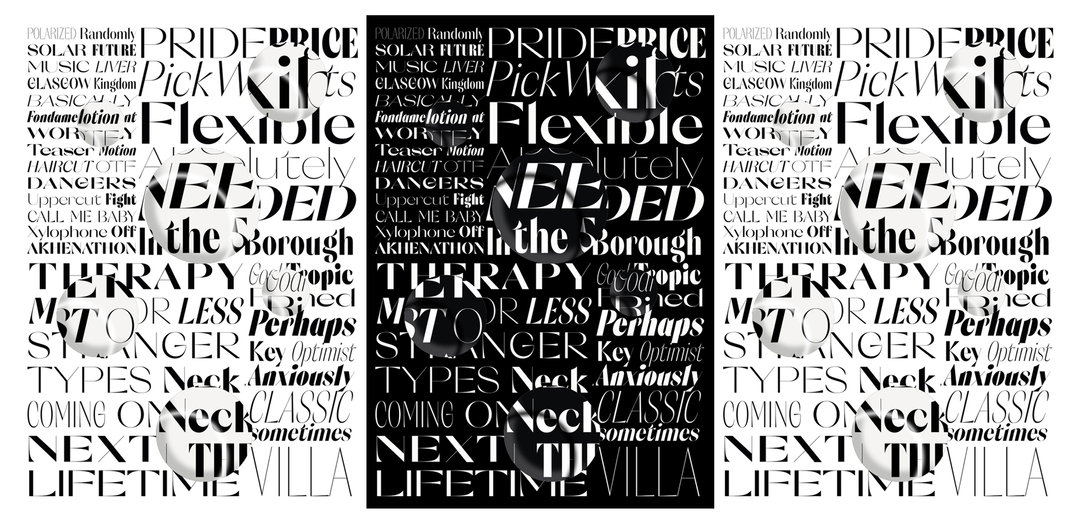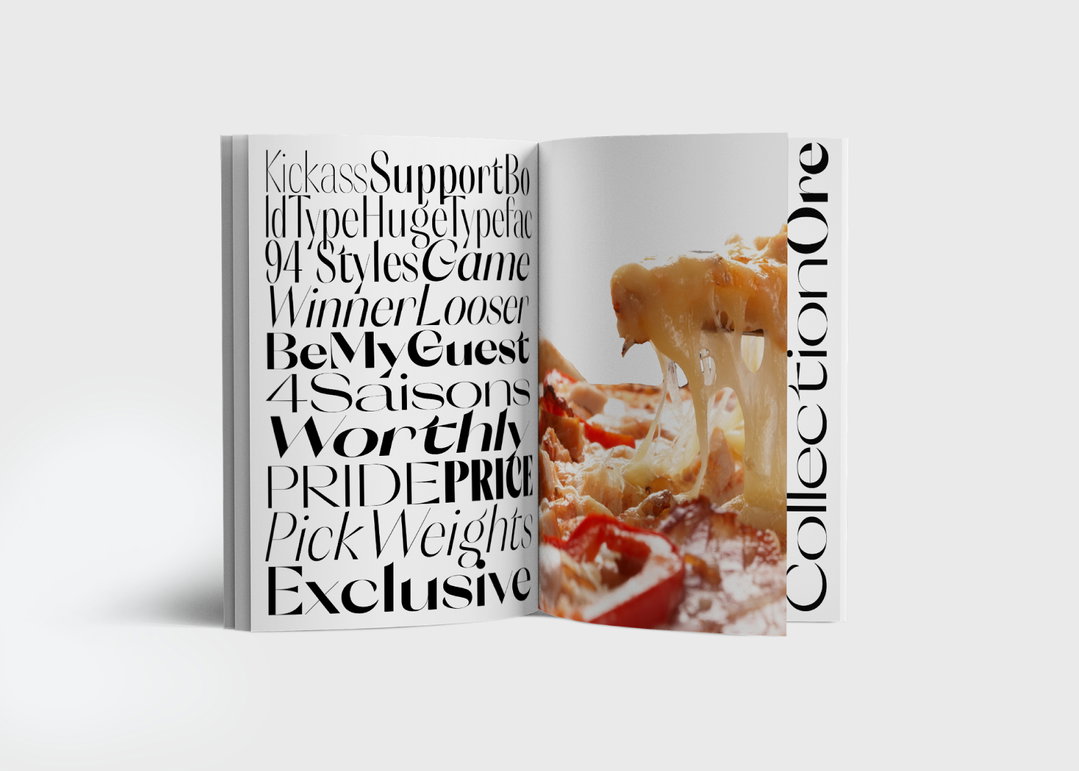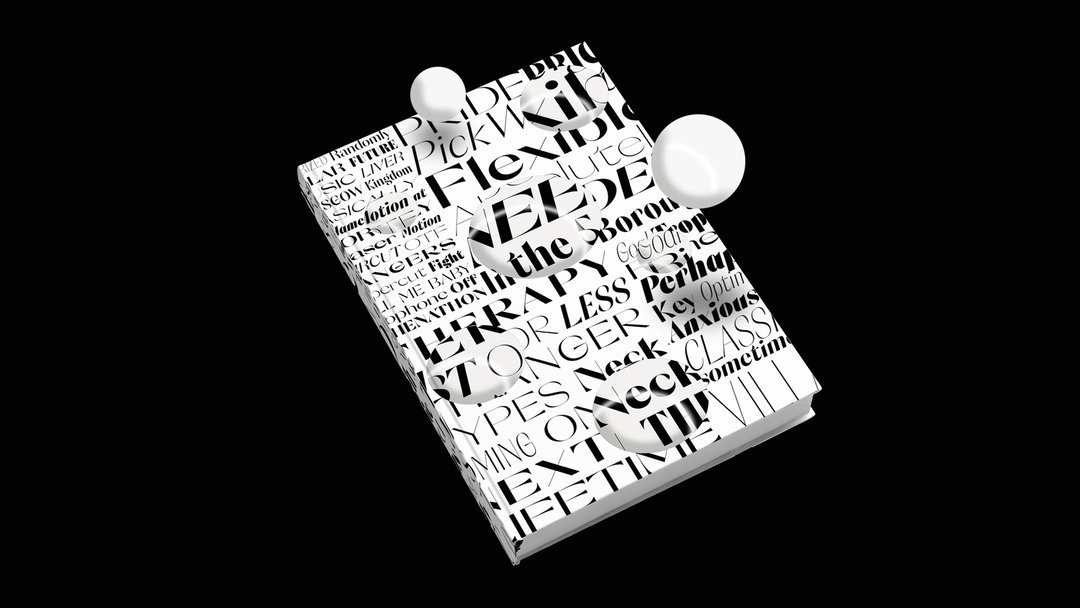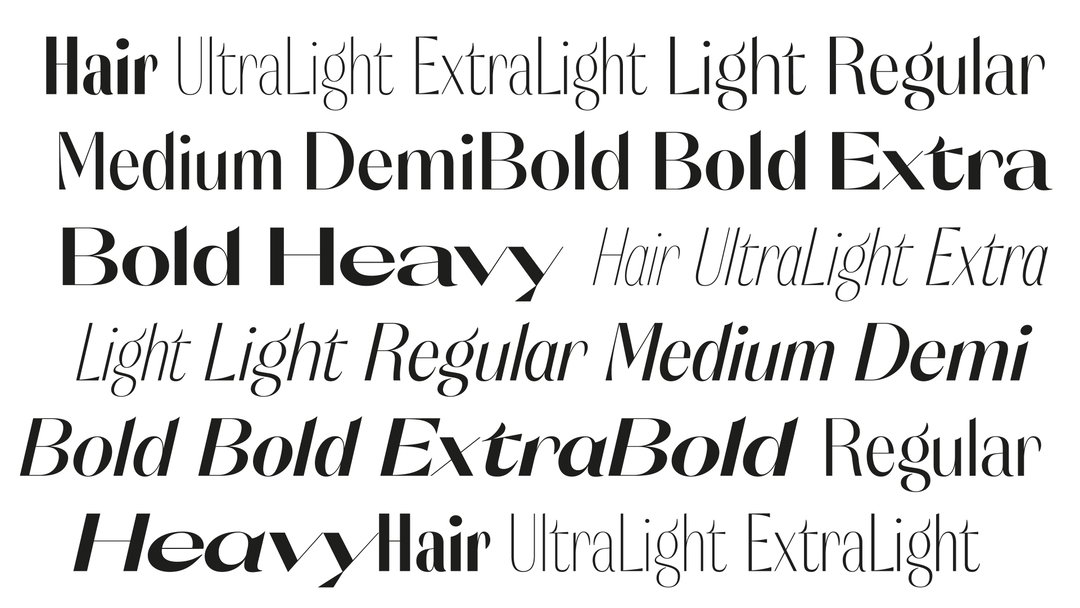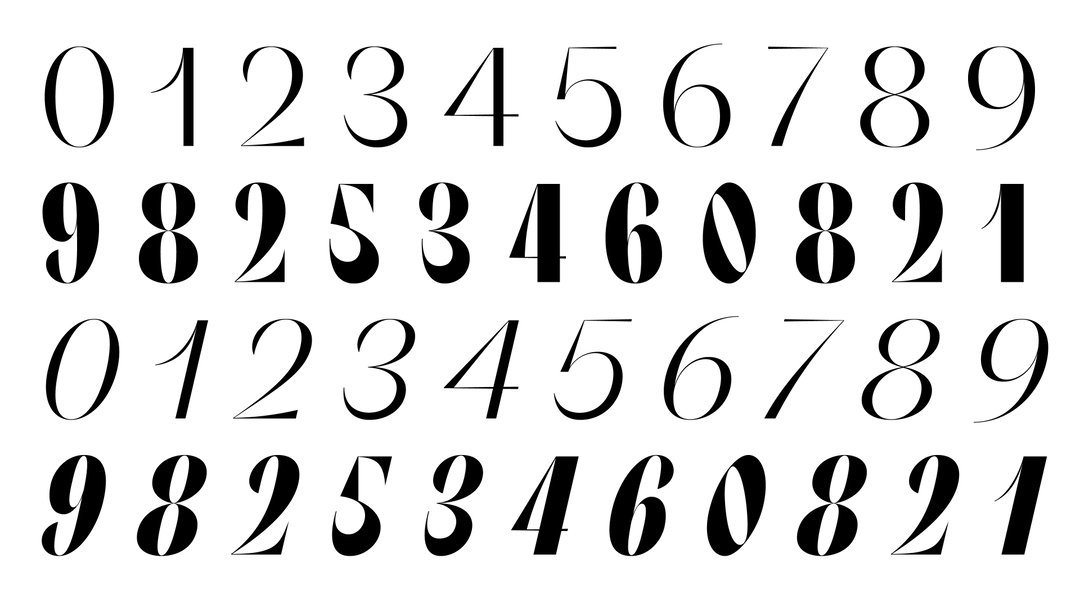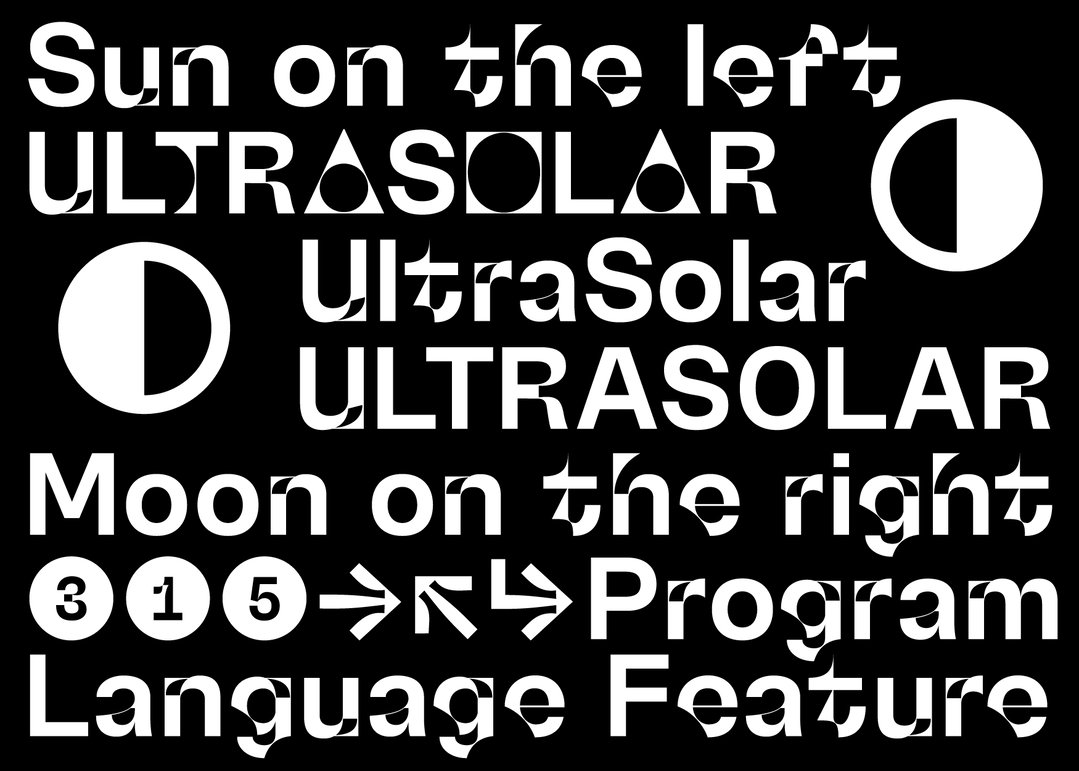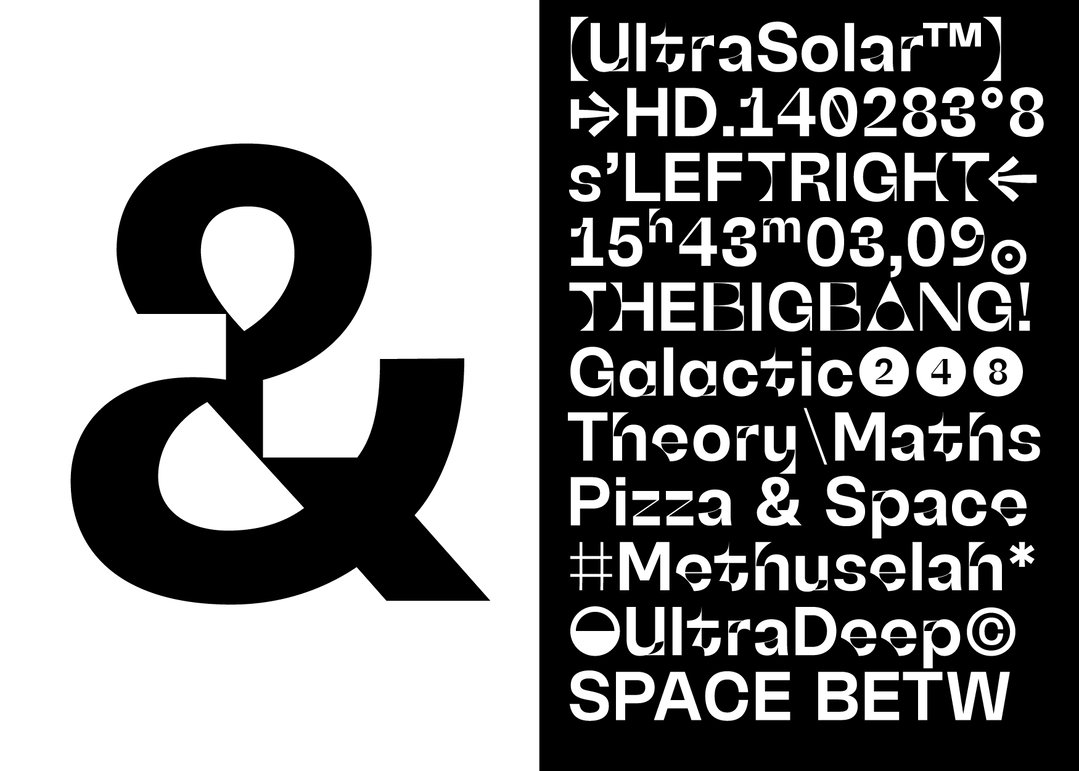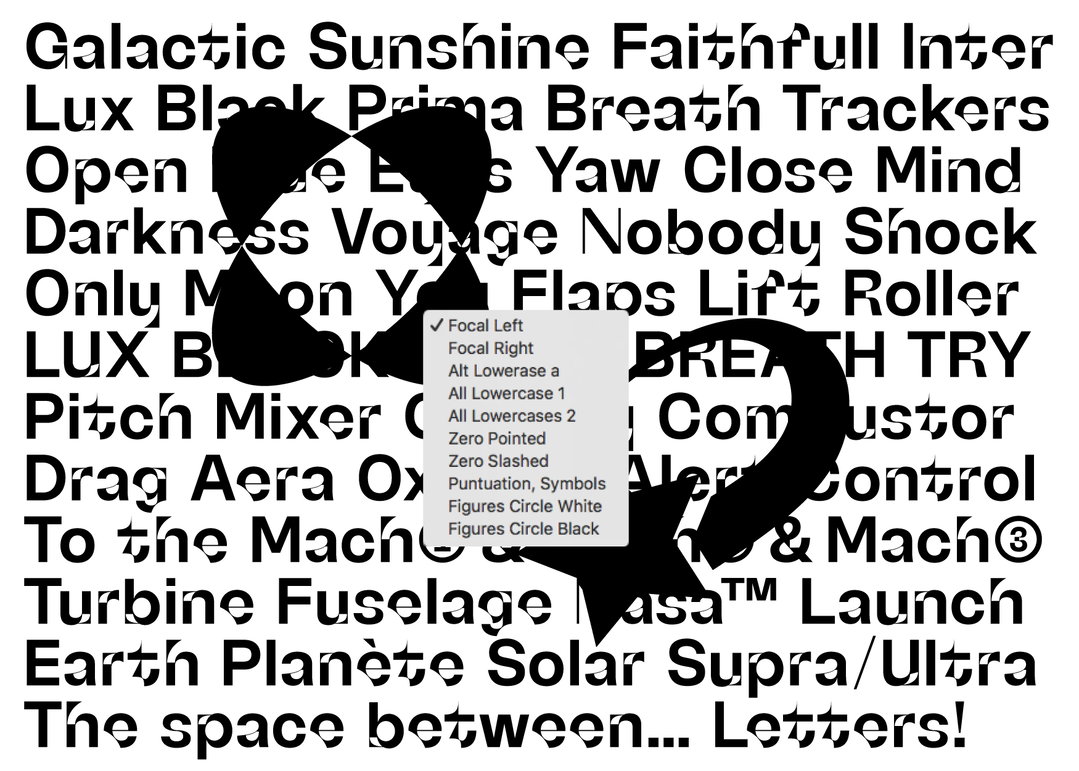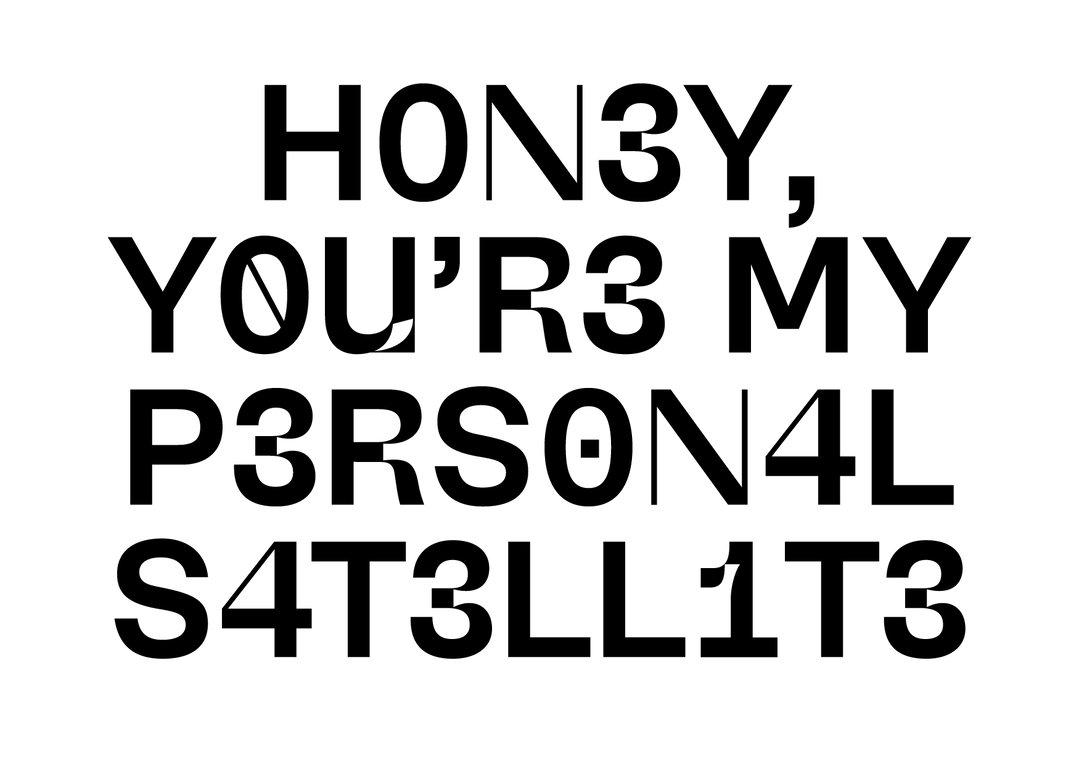
“If it’s weird, go for it!”: Pizza Typefaces deliver unexpected surprises to the menu of type
Adrien Midzic and Luc Borho like a classic margarita just as much as the next exotic topping. Applying this playful ethos to their type designs, Pizza Typefaces present its delicious creations.
Adrien Midzic and Luc Borho, the two brains behind the fantastically named type foundry Pizza Typefaces, first met in German class. Both born and raised in the sunny South of France, the two bonded over their love of graffiti and drawing letters, something they both relished in rather than listening to the German language teachings. Years later, the budding type designers went onto art school, then, began respective freelance careers and moved to Paris. That was when Pizza Typefaces came into being.
On their teenage interest in type Adrien tells us that graffiti was "certainly our first approach to letterforms," he says. “It was the end of the 90s and graffiti started to connect with graphic design and type design.” Influenced by the likes of contemporary artist and muralist Stephen Powers, and later, French graffiti crew 123Klan, the type enthusiasts soon discovered how the design of a letter can communicate a message through its style.
Once at art school, Adrien and Luc went onto discover the design greats: Herb Lubalin, Herbert Bayer, David Carson, Massimo Vignelli, Adrian Frutiger and so on. With an amalgamation of these inspirations in mind, the then-students began to draw their own typefaces for fun, which in turn, quickly became a career. As the years rolled by, ten to be precise, an assortment of clients came to Adrien for custom designs, while Luc worked for a skateboarding magazine, drawing display lettering and whole typefaces in some instances for the publication.
When the pair were finally reunited to form their own type foundry, the studio started exploring their own tastes and needs in typography. “We like a good basic margarita as much as an exotic one,” says Luc on the studio’s playful name. On this principle, the founders carved an ethos for the work they would make. Seeking new and original letterforms, devoid of limitation, Adrien and Luc started work on more abstract fonts. Take Orelo, for example, Pizza Typeface’s alternative, and more personable, answer to Didot.
“Our first attempt was to design a display font influenced by the traditionally French and overused Didot font,” says Adrien. Though a “huge challenge” to create something new from such a familiar typeface, the designers weren’t phased and set out extracting the main characteristics of Didot – contrast and elegance – and going from there. “We reinterpreted it our way,” says Luc, “while pushing the contrast to its maximum, adding a bit of mozzarella and some South of France herbs, and Orelo Standard was cooked.” From there, they extended the family into 10 different weights with corresponding italics resulting in a staggering 120 style variations.
With the fruitful mantra of: “If it’s weird, go for it!”, Pizza Typeface’s spirited designs are fun-loving yet accessibly legible. Exemplified in UltraSolar, a graphic designer’s playground, the project offered the designers the chance to stretch their creative weirdness in all directions possible. Placing quirky sections of negative space on each sign became the goal (especially in the most unexpected areas) giving UltraSolar its distinct style and making it a great favourite amongst type lovers.
As for the future, we can expect even more fortuitous designs with the pair currently working on a reinterpretation of a classical serif, but “with some pomodori affumicati inside,” joke the founders. Amidst extensions to the type foundry’s existing family of fonts, soon enough, we can also expect some surprises on the menu too!”
Orelo
UltraSolar